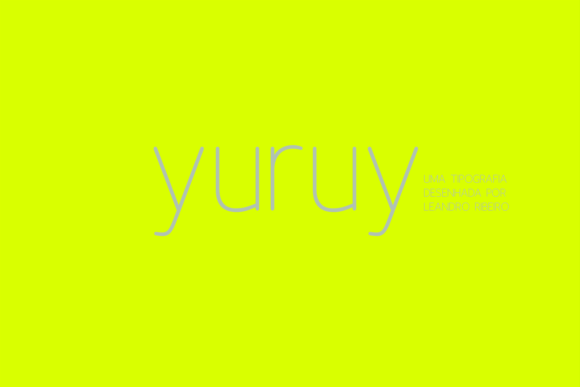
Yuruy: The Key to Unlocking Clean and Sophisticated Designs
In the realm of digital artistry, typography reigns supreme, with the power to transform words into captivating visual masterpieces. Among the multitude of fonts that grace our screens, Yuruy emerges as a radiant gem, a sans serif masterpiece crafted to elevate your designs to unparalleled heights.
Yuruy's clean lines and meticulous curves exude an air of sophistication, making it the perfect choice for conveying messages with clarity and impact. Its adaptable nature allows it to seamlessly blend with various design styles, from the minimalist to the extravagant.
Unleash your creativity with Yuruy, a font that empowers you to craft:
- Enchanting book texts that transport readers to distant realms
- Captivating documentation that clarifies concepts with effortless ease
- Persuasive business reports that command attention and inspire action
- Professional business correspondence that exudes confidence and authority
- Eye-catching magazines and newspapers that ignite curiosity and engage readers
- Vibrant posters and advertisements that demand attention and leave a lasting impression
- Dynamic multimedia presentations that captivate audiences and convey messages with flair
- Polished corporate designs that reflect your brand's unwavering professionalism
With Yuruy at your fingertips, the possibilities are boundless. Embrace its versatility and watch as your designs transform into works of art, captivating your audience and leaving an unforgettable mark on their minds.